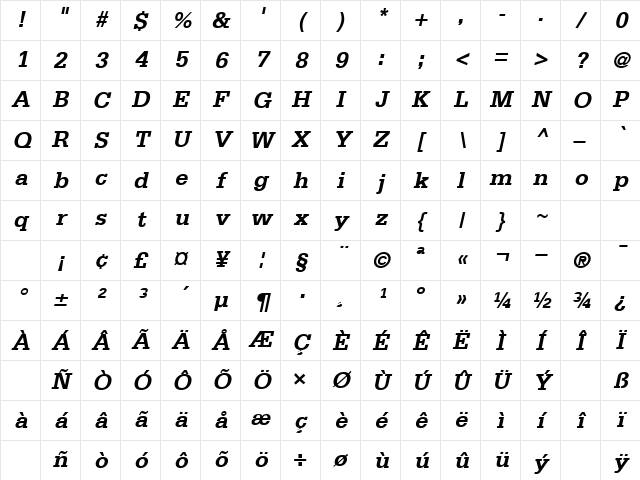
Rhyme Bold-Oblique Free Font
Rhyme Bold-Oblique
Style: Bold-Oblique
Design Context for Rhyme
Rhyme is a composed and adaptable typeface that performs quietly and consistently across a wide range of design contexts. The slanted form adds forward momentum and visual energy. Its bold stroke weight gives it real presence on the page.
Pro Tip: Use Rhyme for emphasis, pull quotes, and subheadings where its slanted energy can add rhythm to the layout.